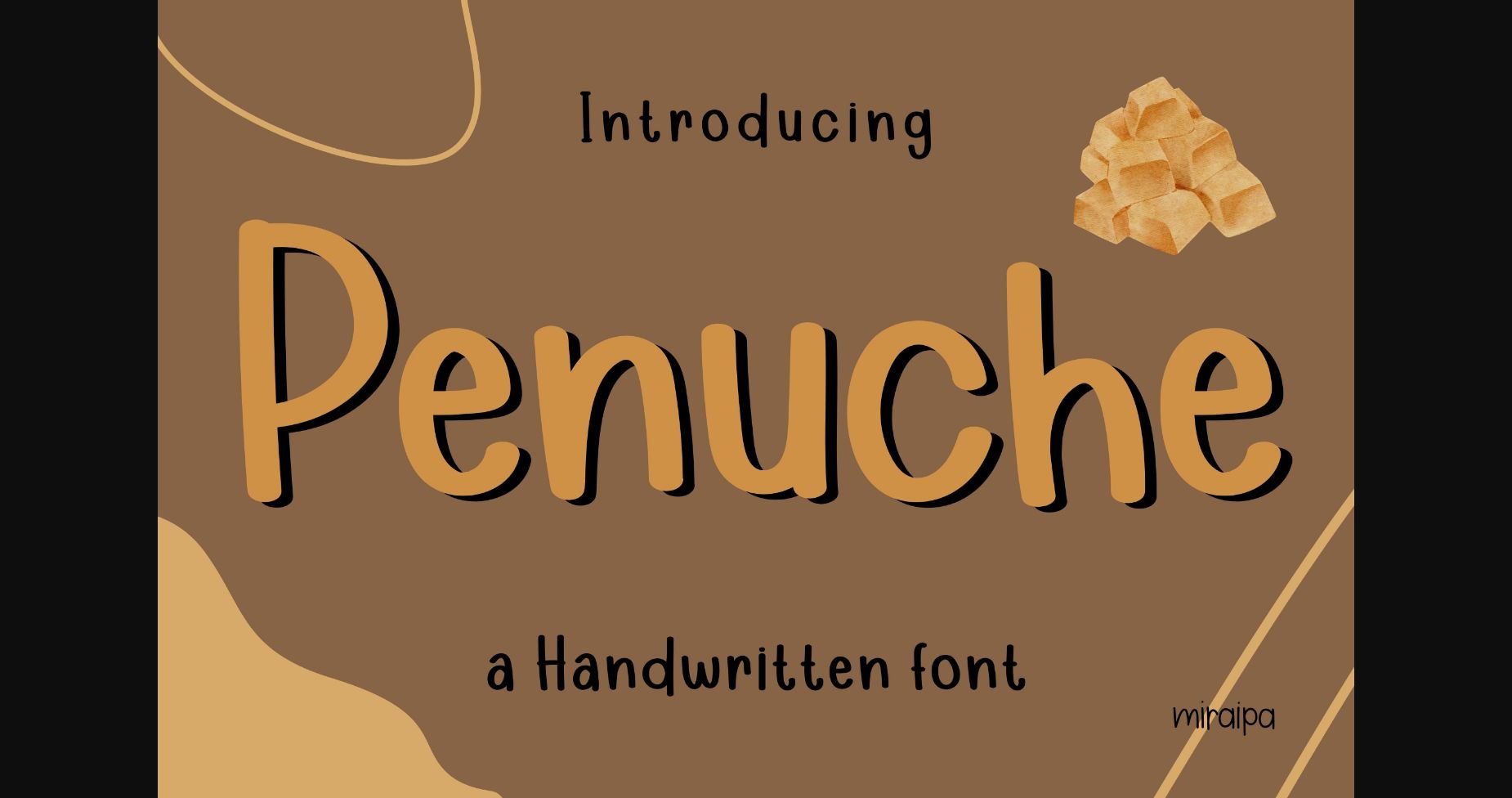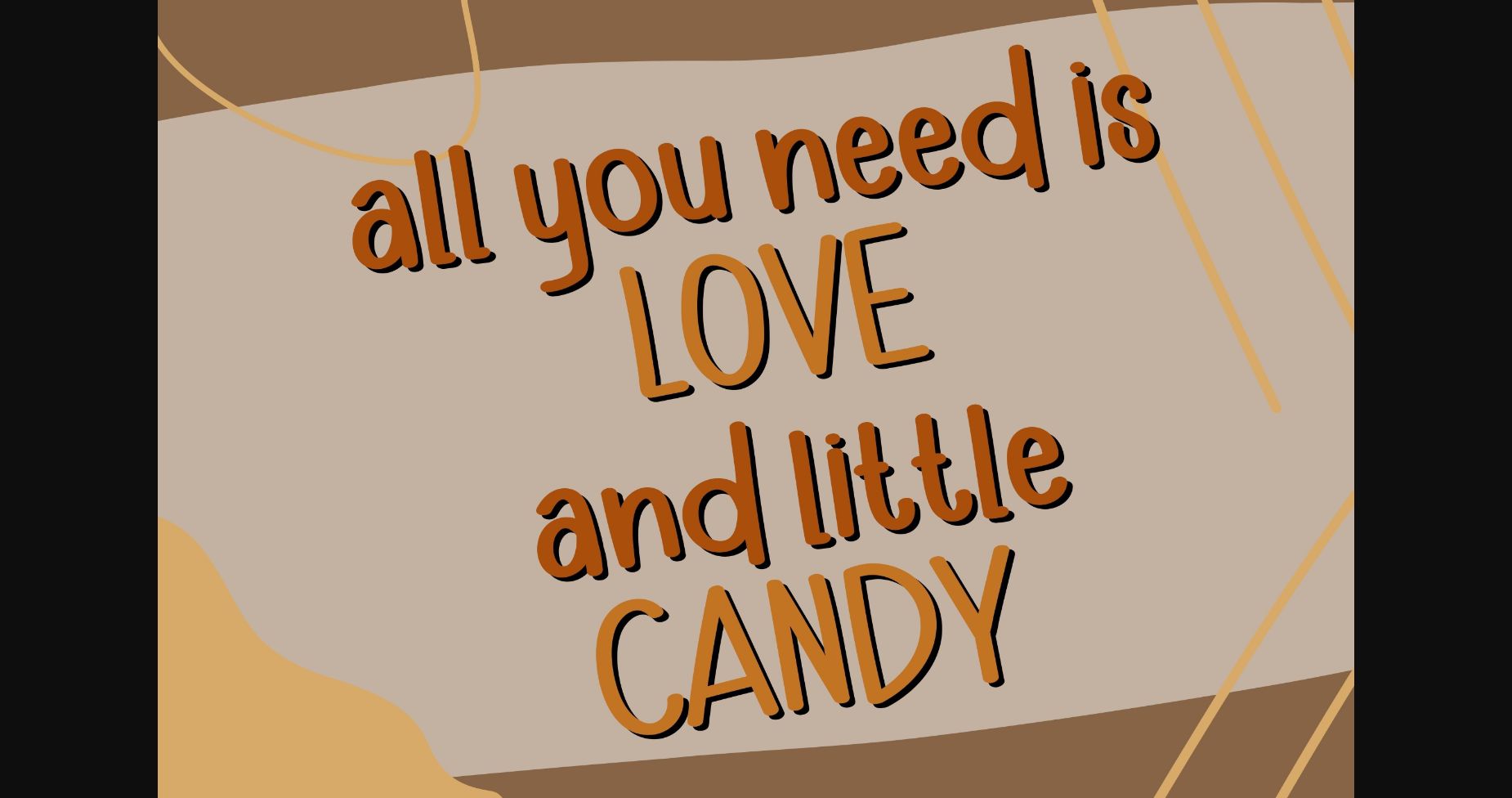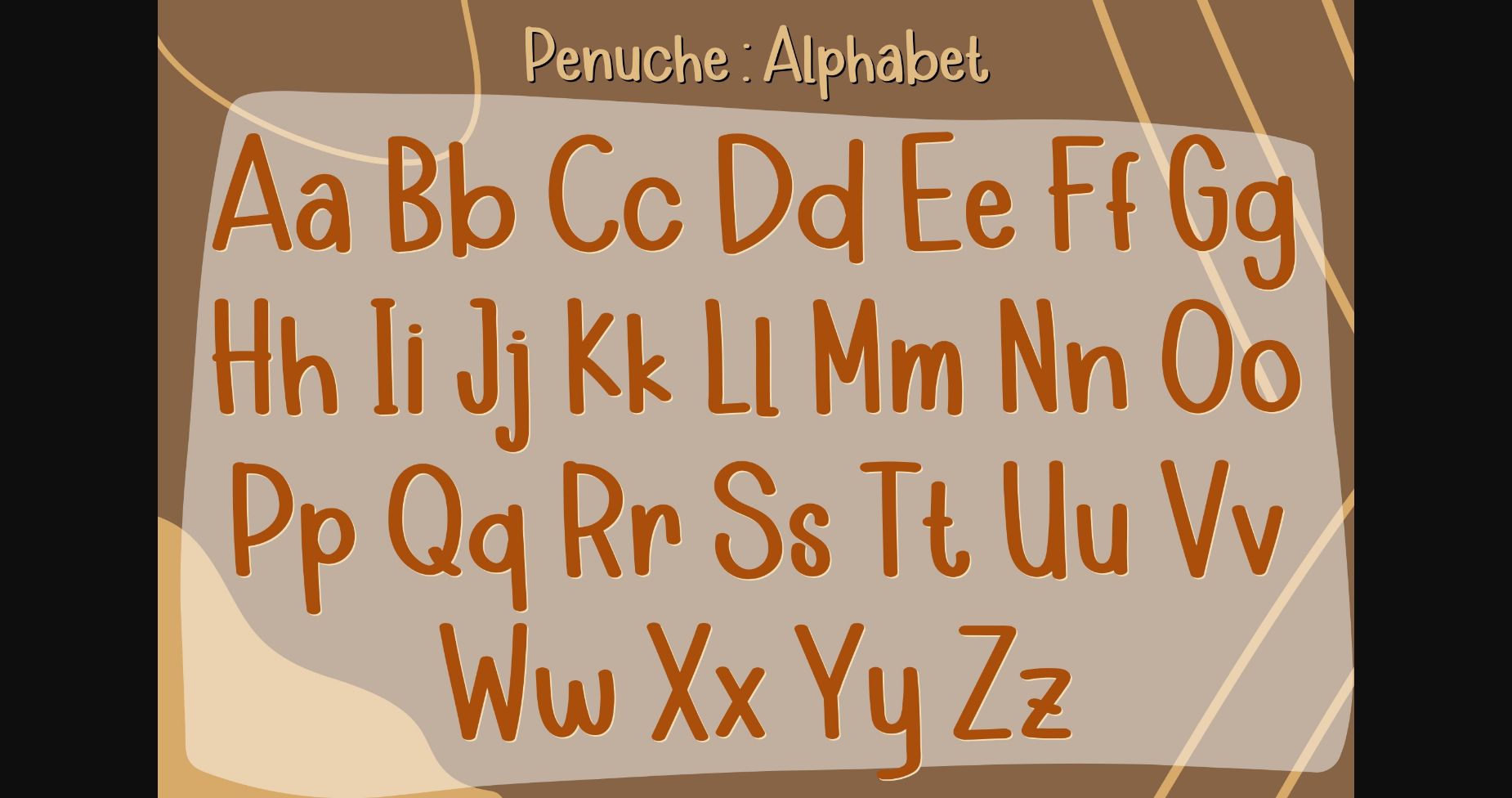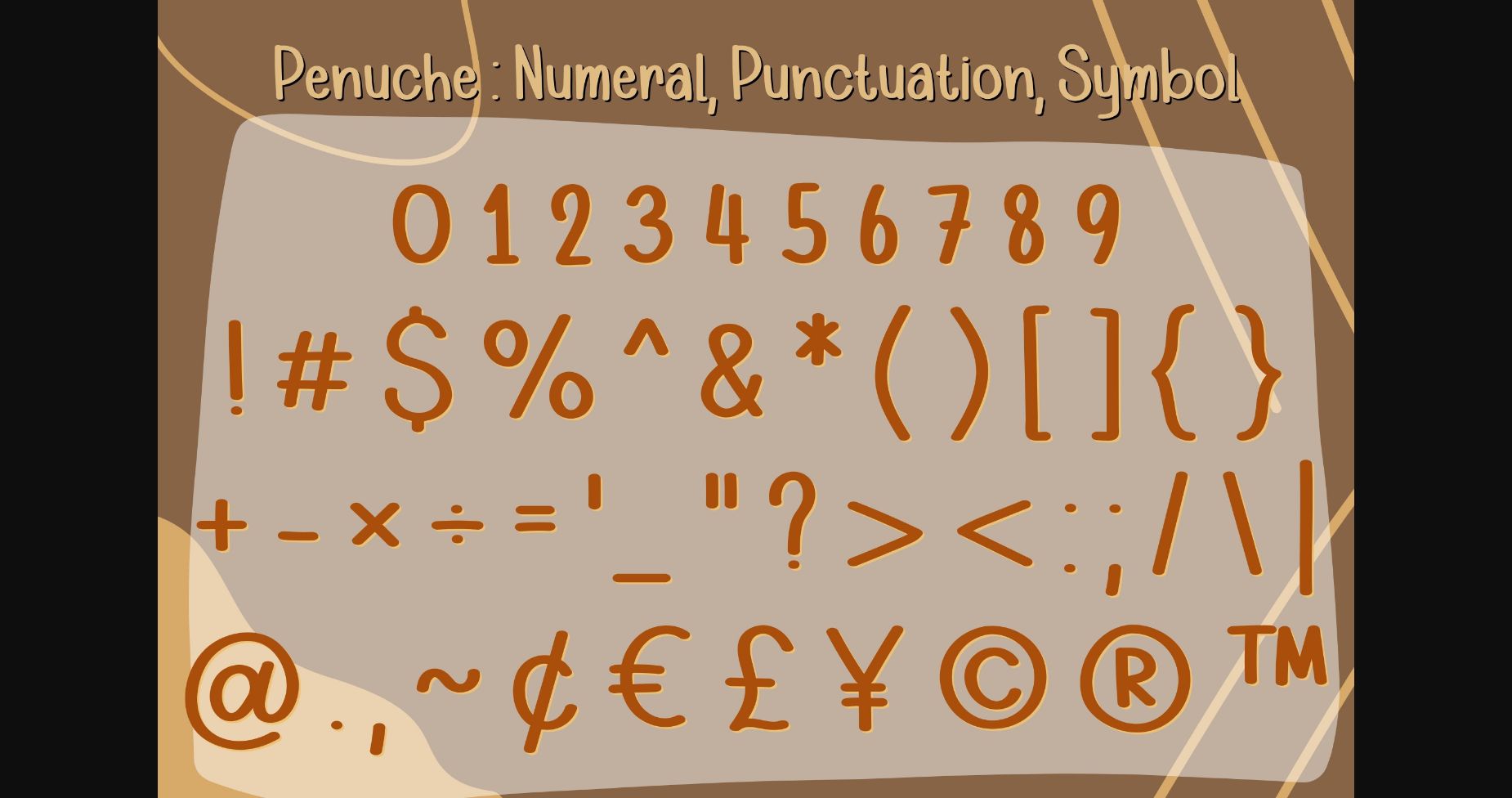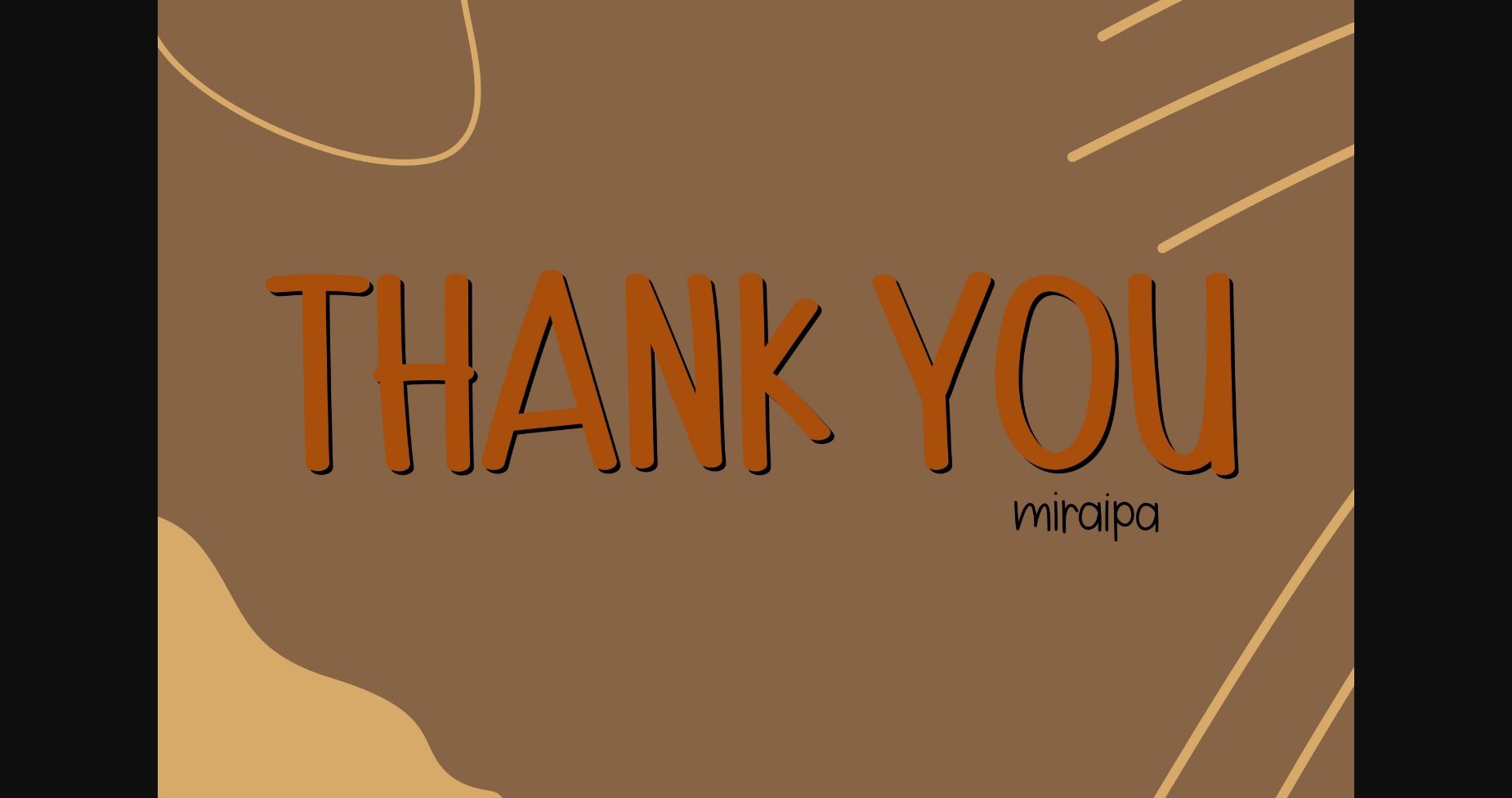
Penuche Font
About Penuche Font
Penuche is a sans serif font designed in a friendly and lovely style. It would be awesome for your diary planner and journal, and also perfect for back-to-school projects, party decoration, party invitations, festival decoration, posters, blogs, clothing, child-related designs, greeting cards, social media posts, or anything that needs a friendly touch. Add it now to your fonts library, and it will bring any of your DIY projects to life.